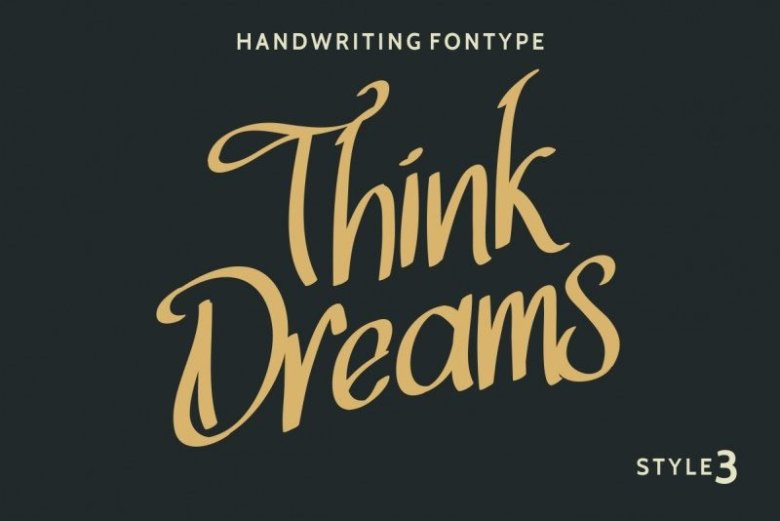
ThinkDreams Script Font
Good night Everyone! Please meet our newest font : ThinkDreams Script Font! This is a new modern script handwriting font. It has a unique yet elegant and stylish characters . Will be perfect for any handwritten project ,comic , branding, promo, wedding, etc